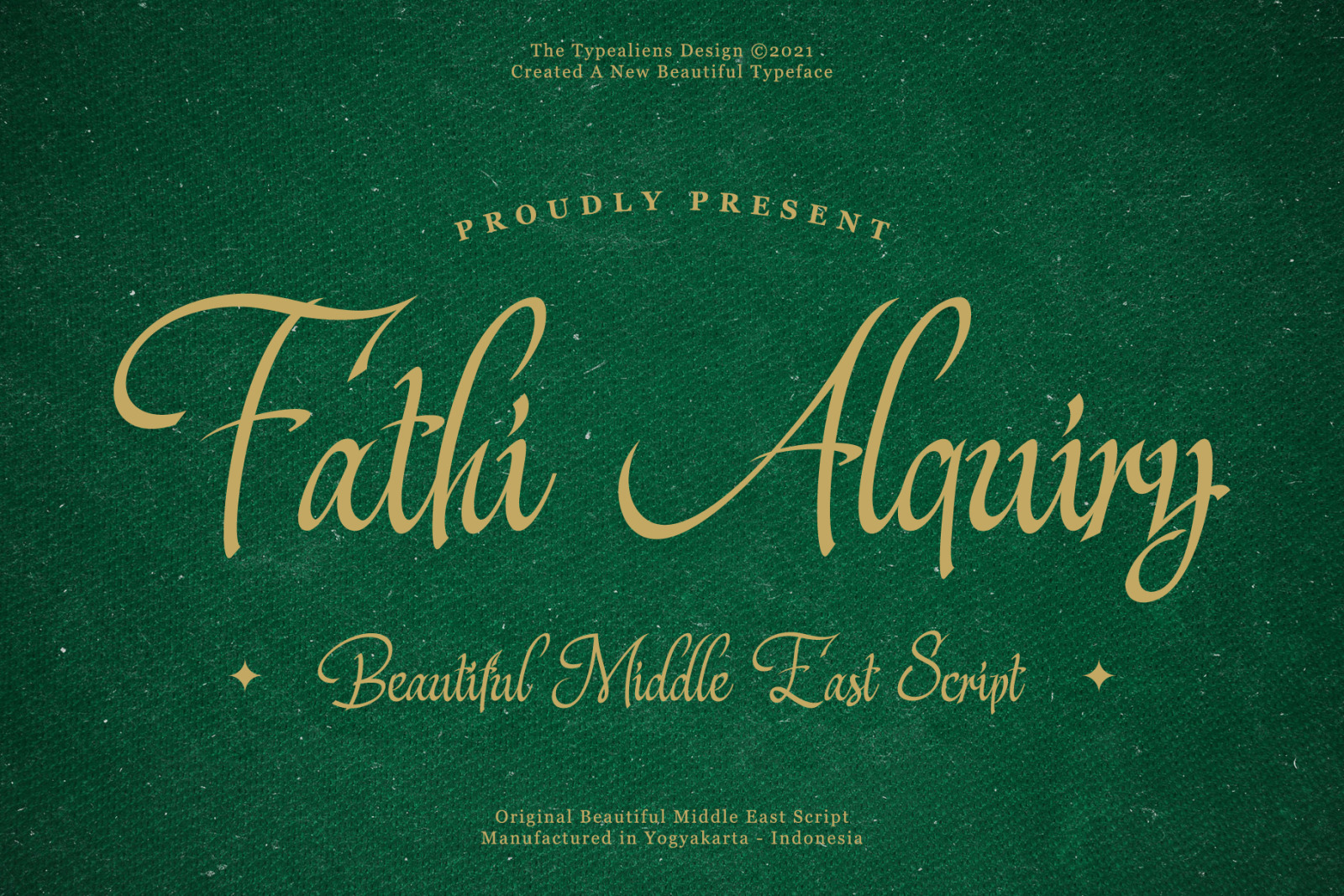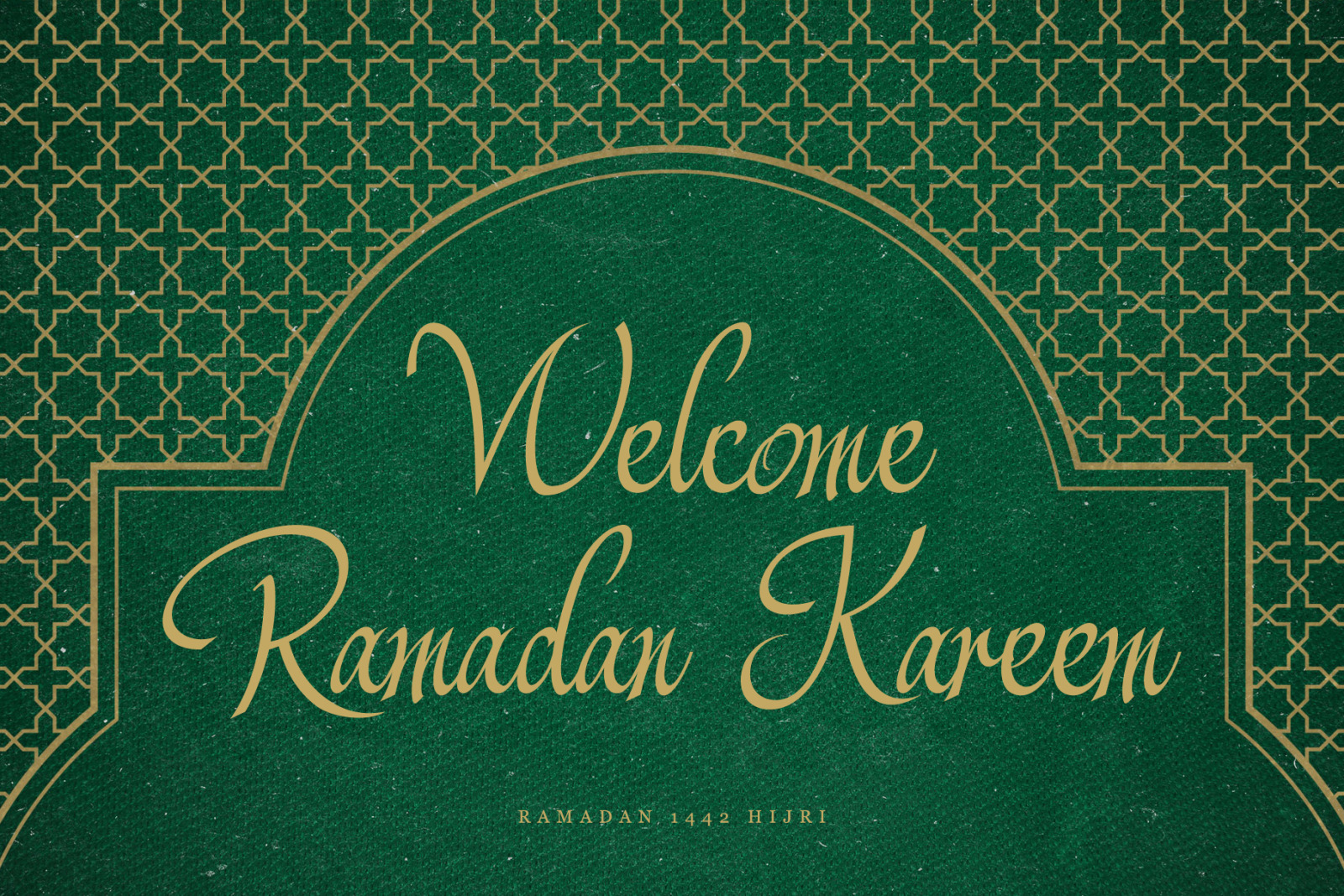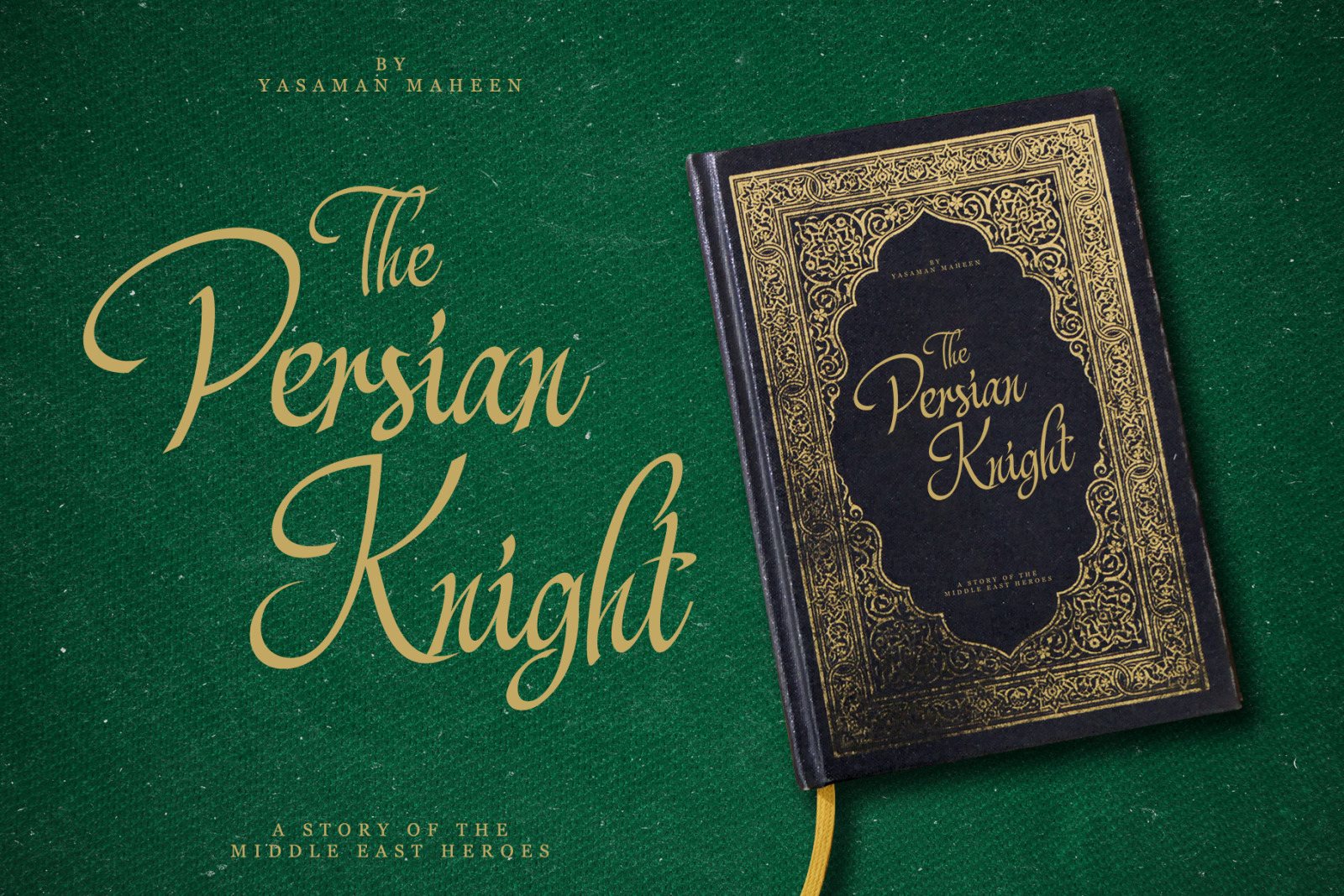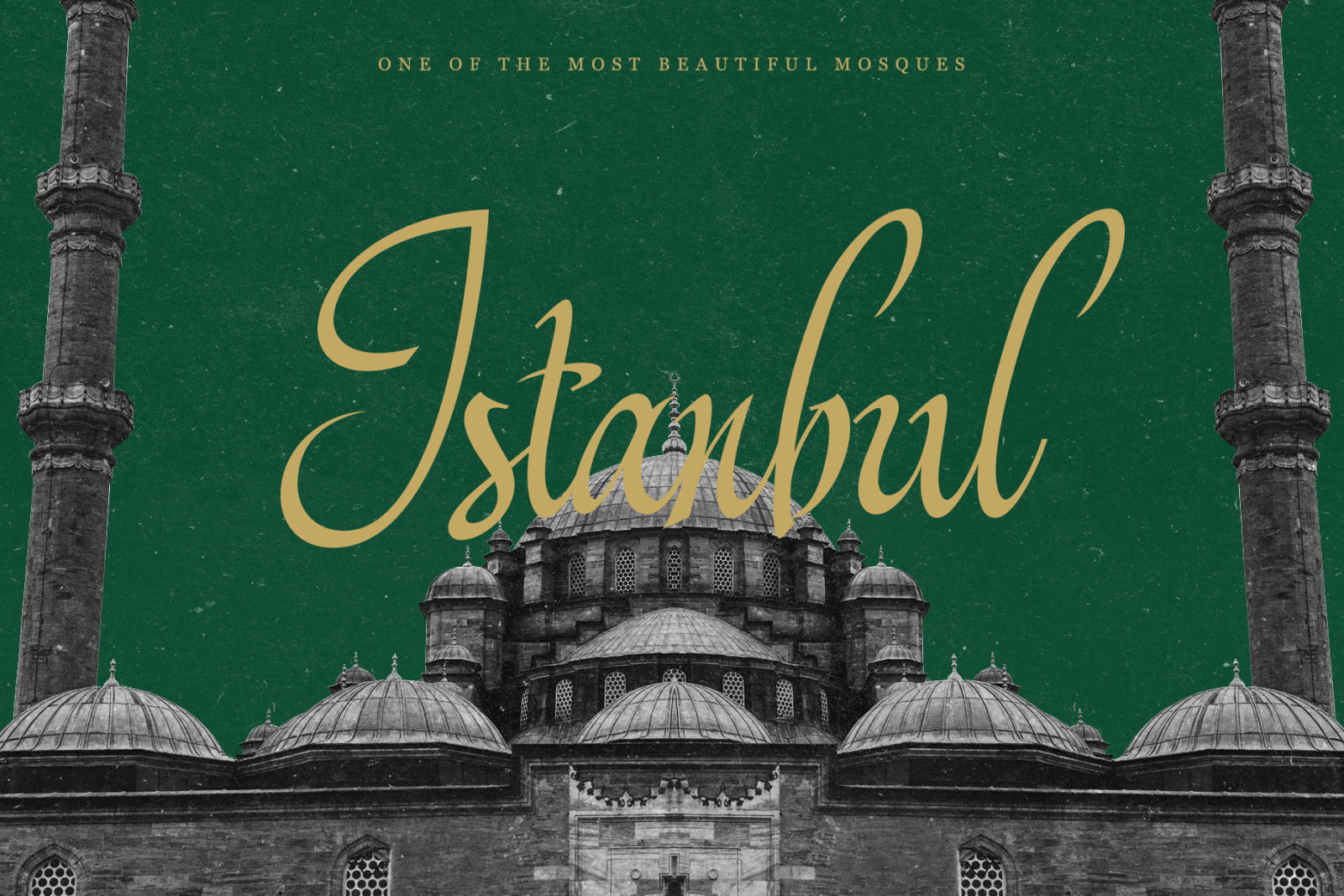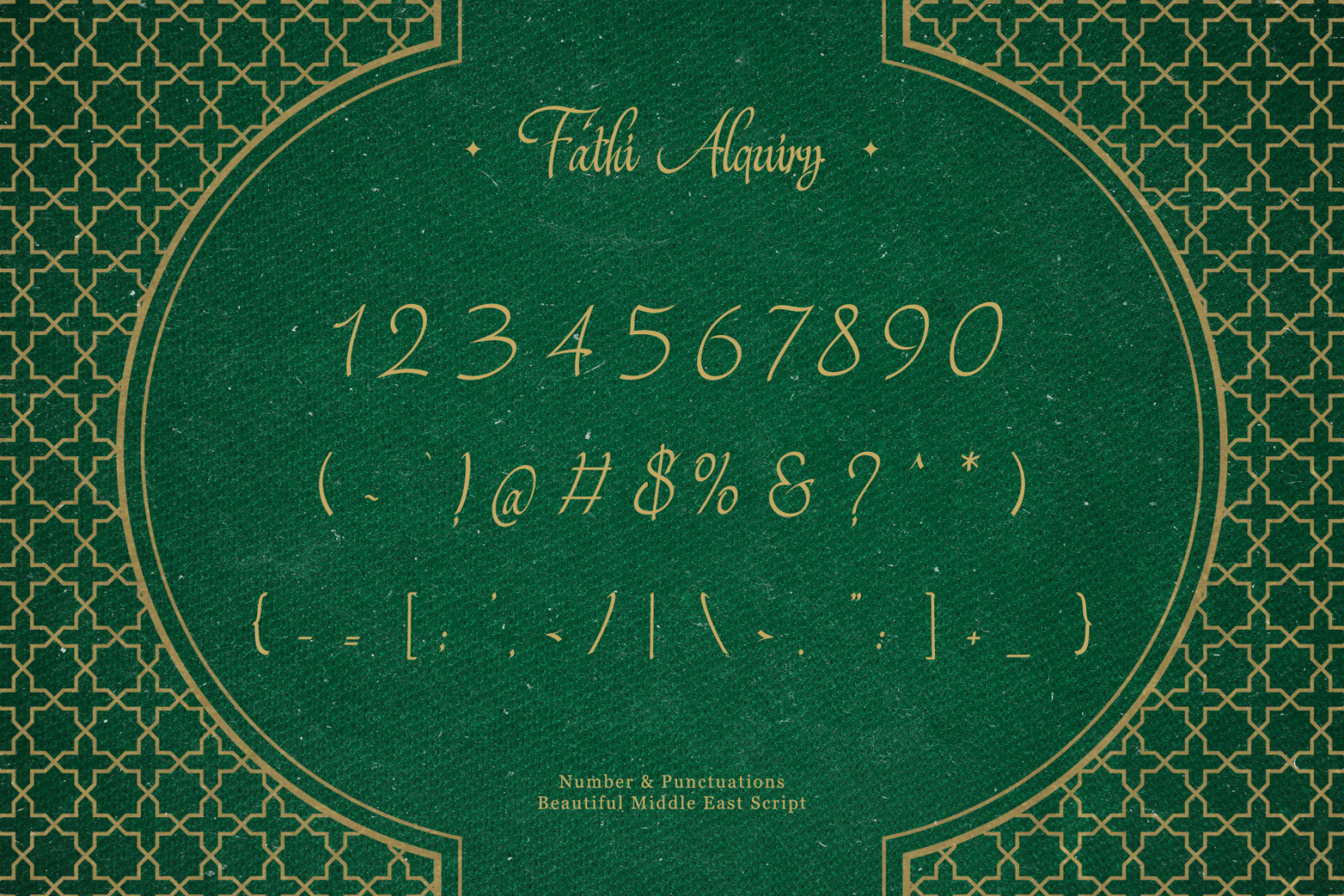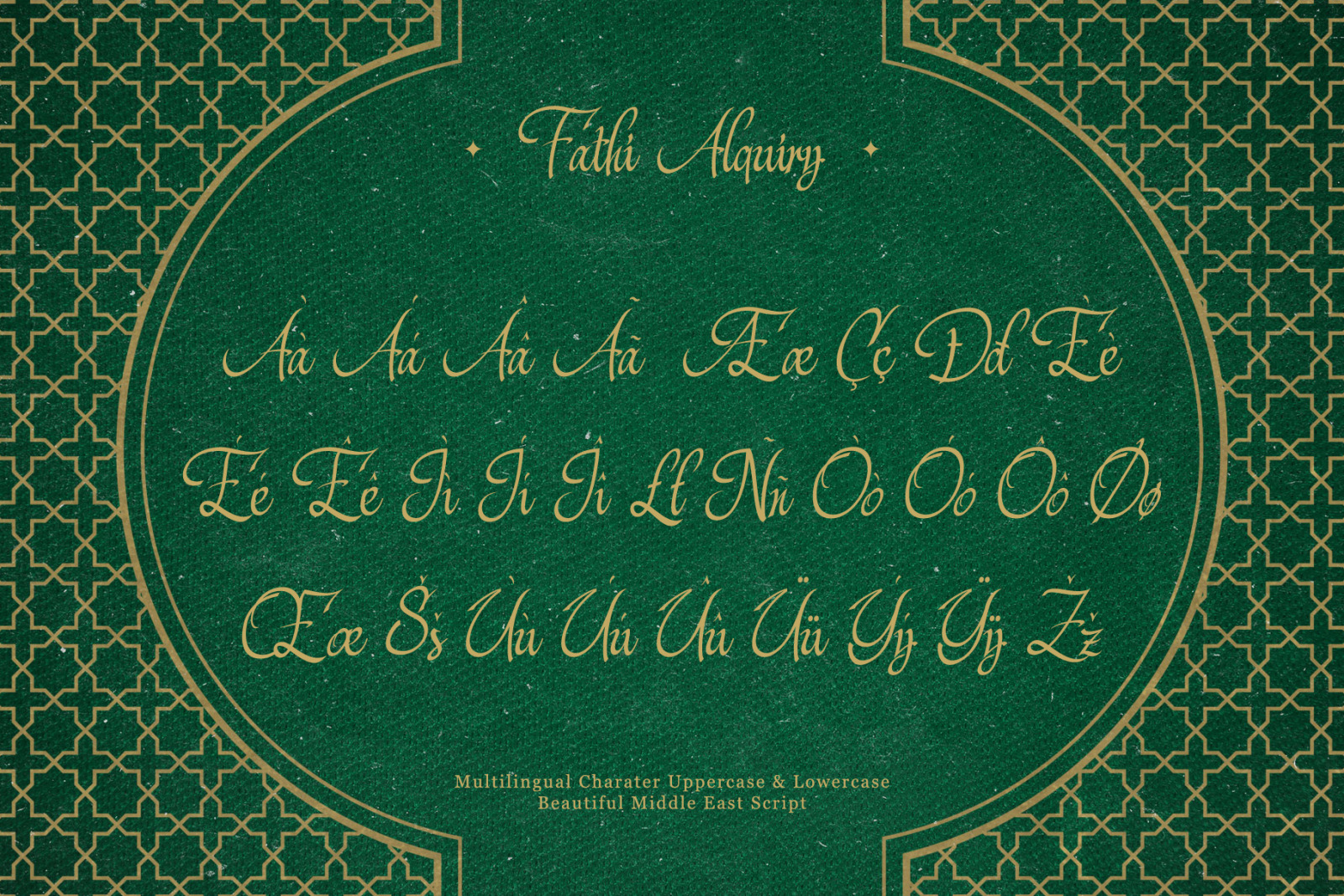
Fathi Alquiry Font
FATHI ALQUIRY is a script font with a middle eastern style, suitable for modern designs with the impression of middle eastern culture. Beautiful and unique font.